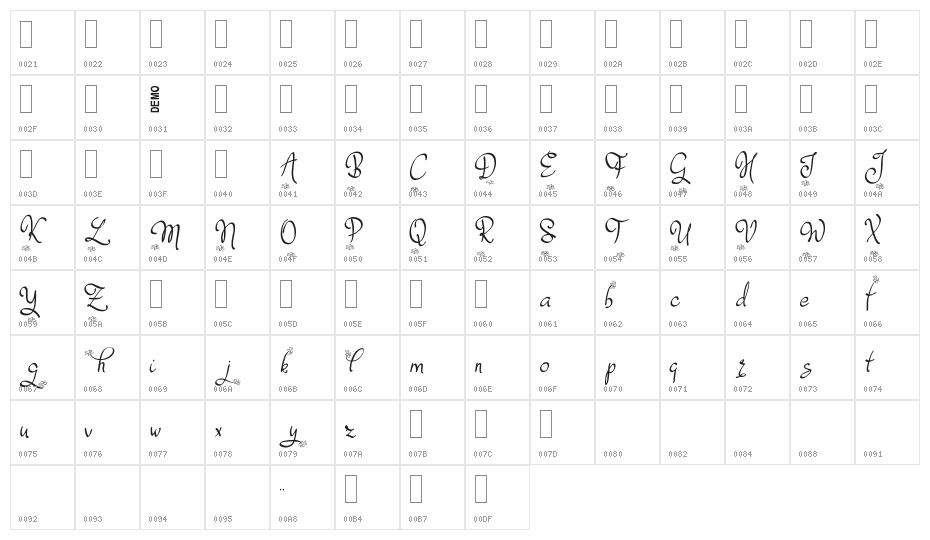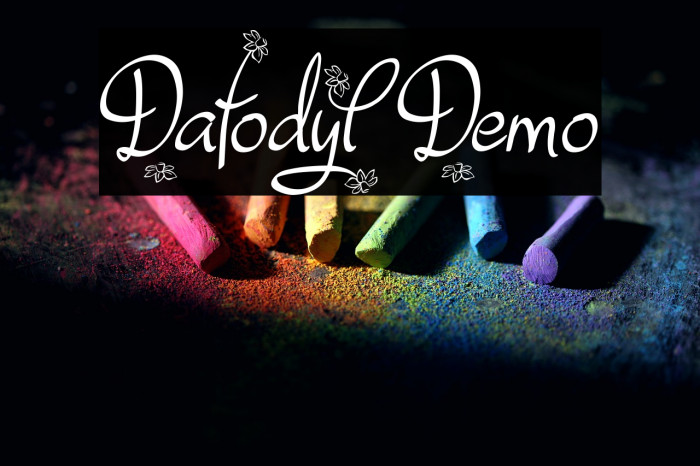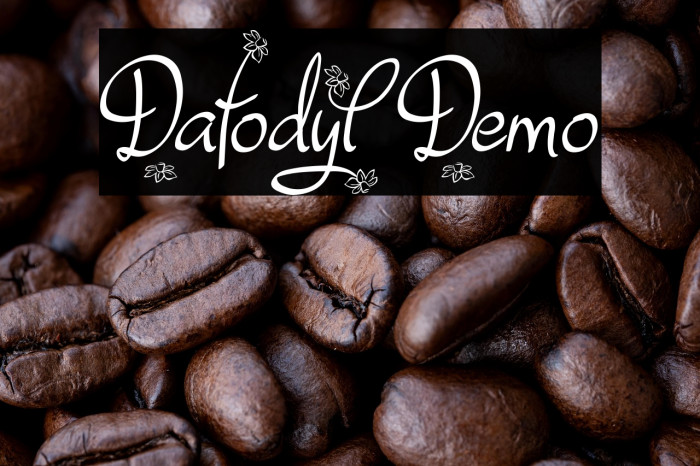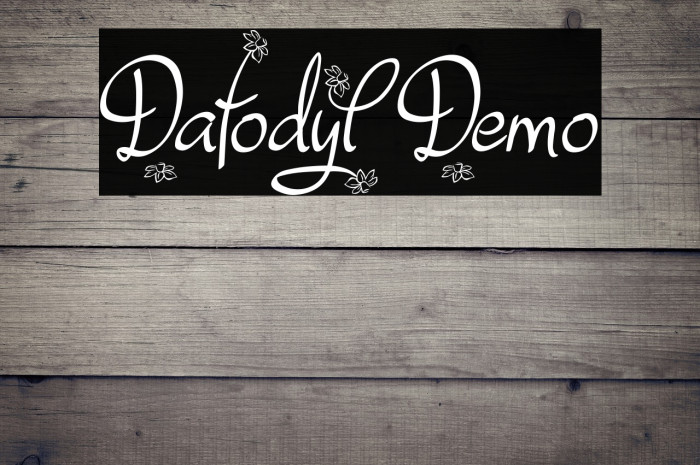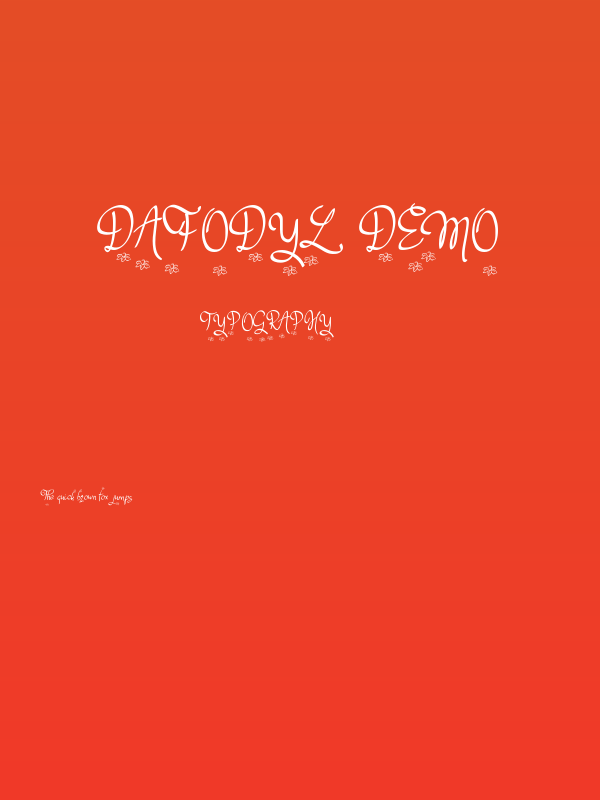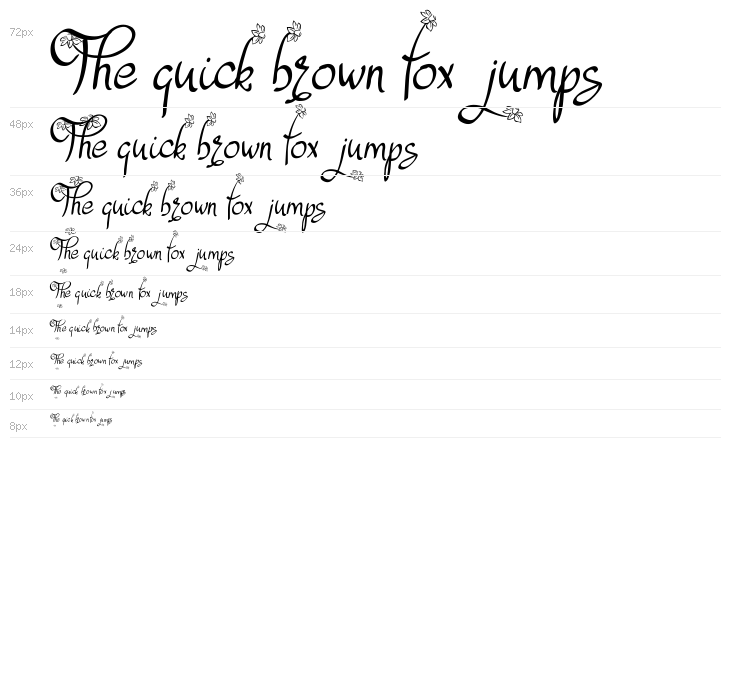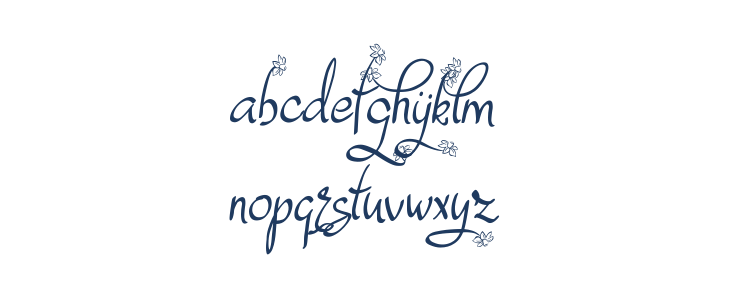
Dafodyl Demo Font
Dafodyl Demo Description
This font features an elegant and decorative script style, characterized by its flowing, cursive letterforms adorned with small floral embellishments. The uppercase letters are particularly ornate, with sweeping curves and flourishes that give them a whimsical and artistic appearance. The lowercase letters maintain a consistent style, with some characters extending below the baseline, adding to the font's graceful aesthetic. The inclusion of floral motifs enhances its decorative appeal, making it suitable for creative and artistic projects. The font's overall design is both playful and sophisticated, offering a unique blend of charm and elegance.
| Proposed Projects | Ideal for wedding invitations, greeting cards, branding, and decorative projects. |